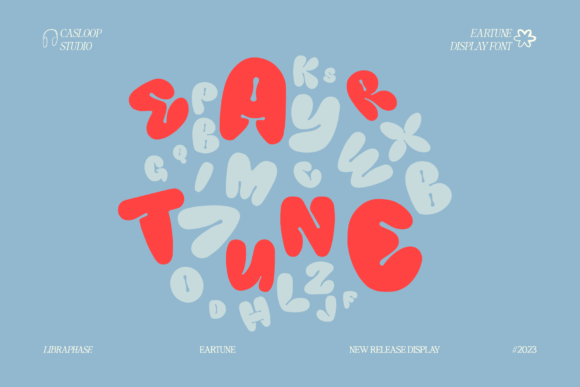
Journey into the realm of artistic audacity with Eartune Font, a display font family that strikes a harmonious chord between graffiti's rebellious spirit and the melodic flow of musical notes. This captivating creation by Casloop is not just a font; it's a symphony of visual expression, ready to orchestrate a visual masterpiece with every stroke.
Eartune Font isn't merely a collection of letters; it's an invitation to unleash your inner artist, to paint your words with the vibrant hues of urban art and let them dance to the rhythm of your imagination. Its graffiti-inspired bubbles burst with energy, demanding attention and igniting a spark of creativity within you.
With Eartune Font, you'll find yourself immersed in a world where the boundaries of design dissolve, where the ordinary transforms into the extraordinary. Whether you're crafting eye-catching posters that sizzle with streetwise style or designing fashion lines that pulse with urban energy, this font is your maestro, guiding you towards design brilliance.
This remarkable font isn't just confined to the digital realm; it's a versatile chameleon, adapting seamlessly to a myriad of creative endeavors. Its prowess extends beyond the screen, gracing T-shirts, mugs, and even skateboards with its captivating presence. Imagine your designs adorning these everyday objects, transforming them into canvases of self-expression and artistic flair.
Envision your logo, the face of your brand, rendered in the bold and playful strokes of Eartune Font. It's a statement piece that proclaims your creative audacity to the world, a visual宣言 that sets you apart from the mundane. This font isn't just a tool; it's an extension of your creative persona, a reflection of your unique style and artistic vision.
But Eartune Font isn't just about aesthetics; it's also meticulously crafted for ease of use. Its PUA encoding ensures effortless access to a treasure trove of glyphs and ligatures, empowering you to unleash your creativity without technical hurdles.
So, embark on this artistic odyssey with Eartune Font, where your designs will reverberate with the rhythm of urban art and dance to the beat of your imagination. Let your creativity take center stage and transform your designs into symphonies of visual delight. Embrace the allure of Eartune Font and redefine the boundaries of artistic expression.